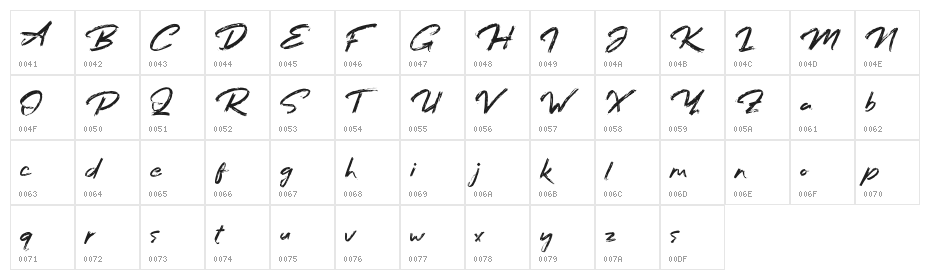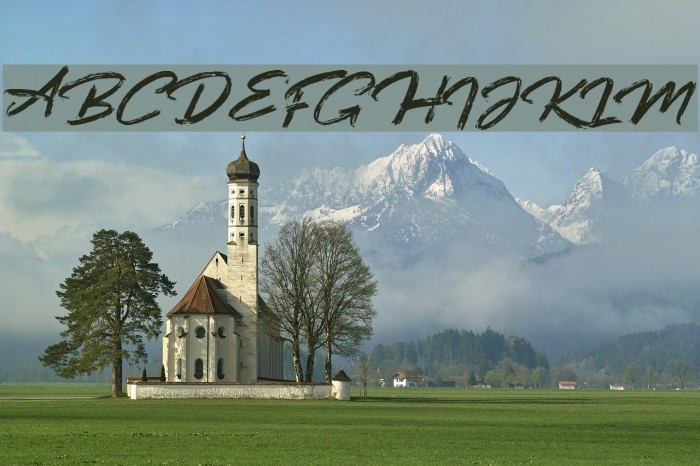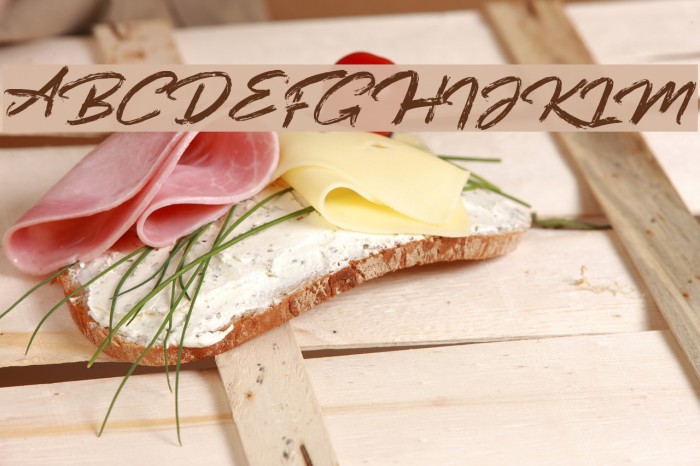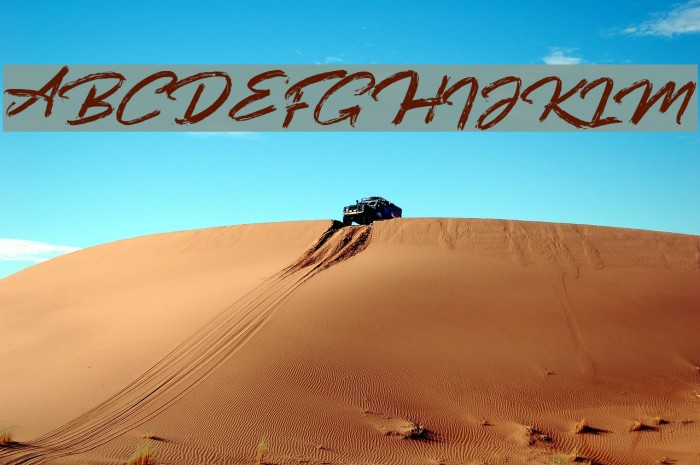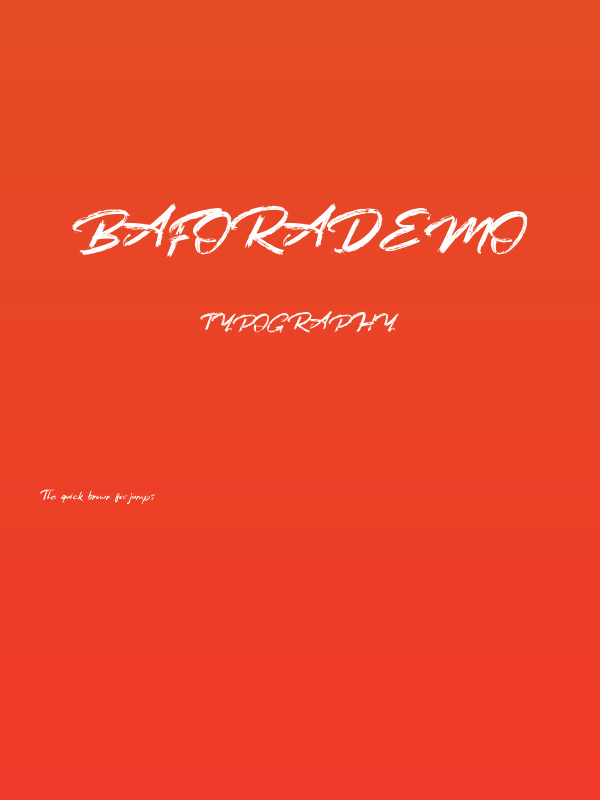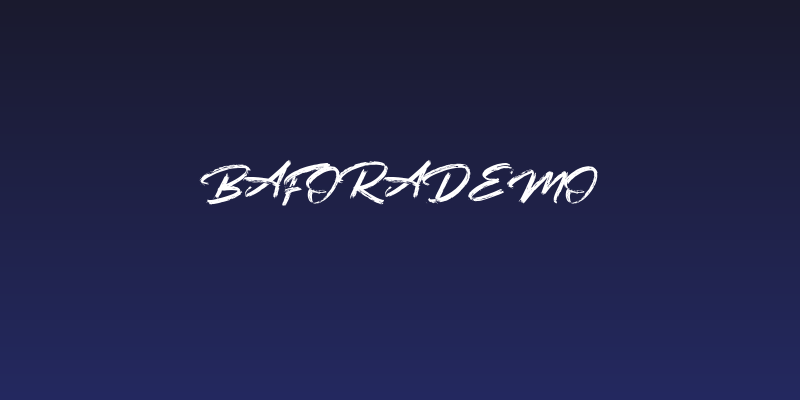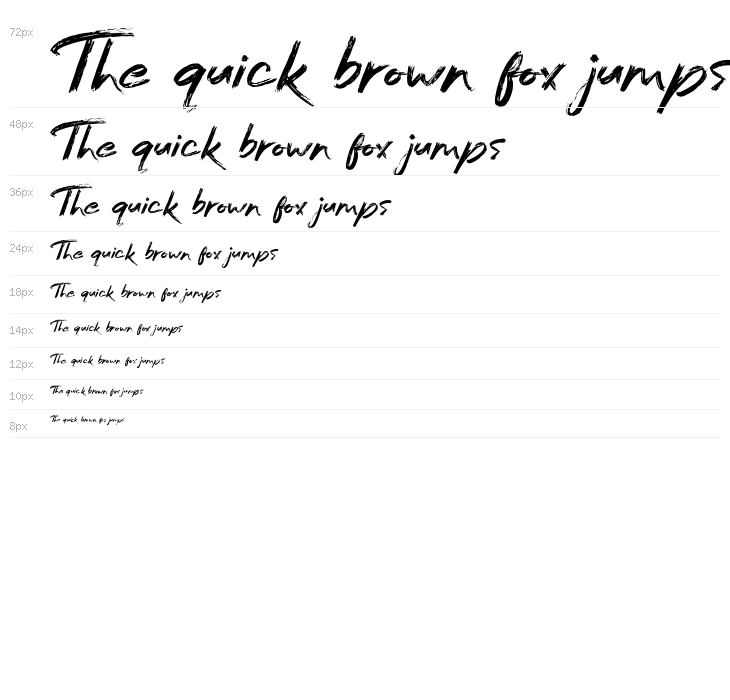
BaforaDemo Font
BaforaDemo Description
This font exhibits a bold, expressive style with a brush-like texture that gives it a dynamic and energetic appearance. The strokes are uneven, mimicking the natural flow of hand-drawn lettering, which adds a personal and artistic touch. The uppercase and lowercase letters maintain a consistent style, with a slight slant that enhances the sense of movement. The characters are closely spaced, creating a compact look that emphasizes the boldness of each letter. This font is ideal for projects that require a strong visual impact, such as posters, branding, and creative designs.
| Proposed Projects | Ideal for posters, branding, artistic designs, and any project needing a strong visual impact. |